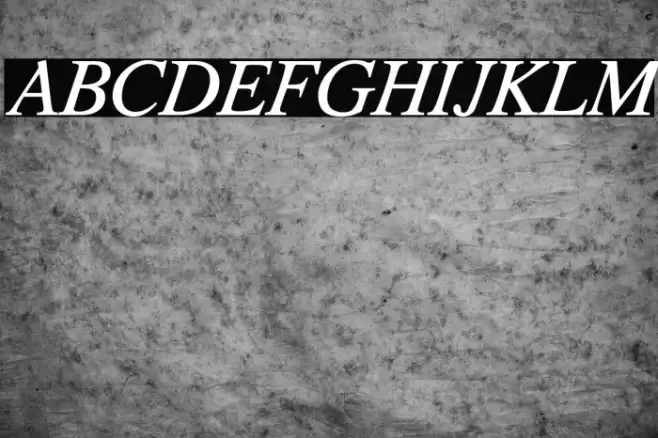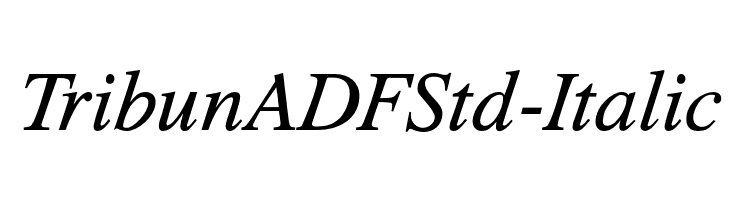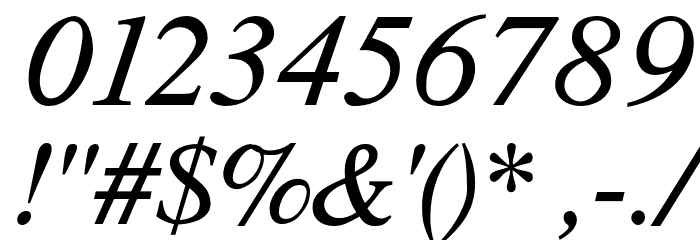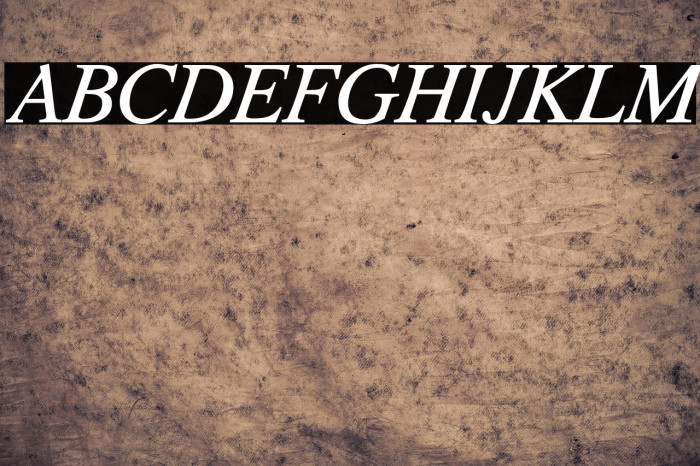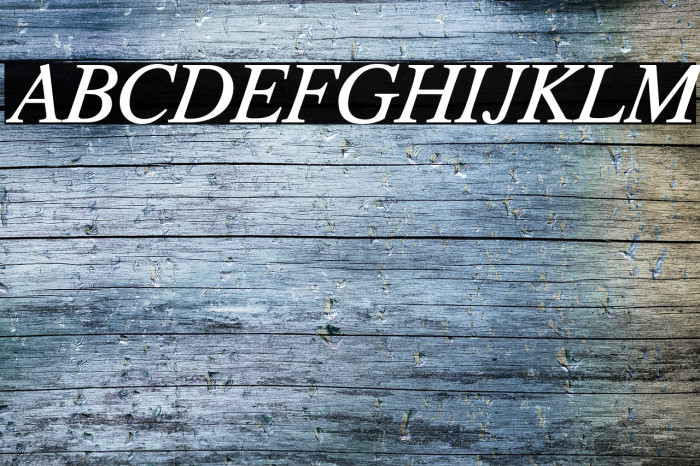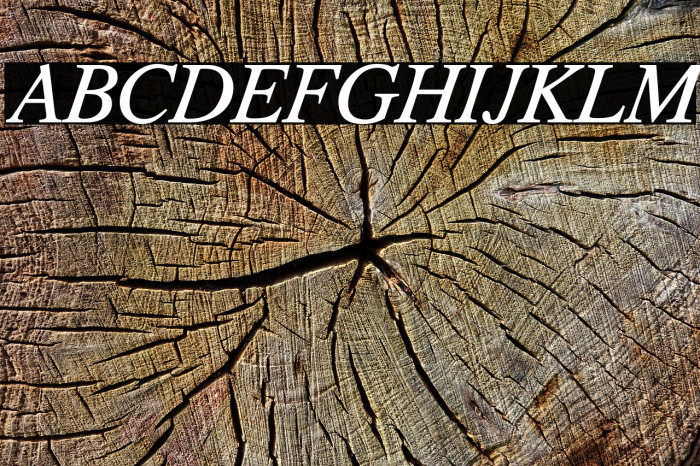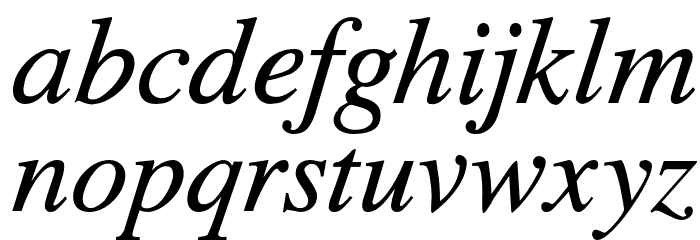
TribunADFStd-Italic Font
TribunADFStd-Italic Description
This font exudes a classic elegance with its italicized serif style, characterized by smooth, flowing lines and a slight slant that adds a sense of motion and sophistication. The uppercase letters are bold and commanding, while the lowercase letters maintain a graceful and refined appearance. The numerals are distinct and well-proportioned, ensuring readability. The special characters are designed with the same attention to detail, making them seamlessly integrate with the rest of the typeface. This font is ideal for projects that require a touch of class and tradition.
An elegant italic serif font with smooth, flowing lines and a classic style from Uncategorized fonts.
- Overall Style: Classic